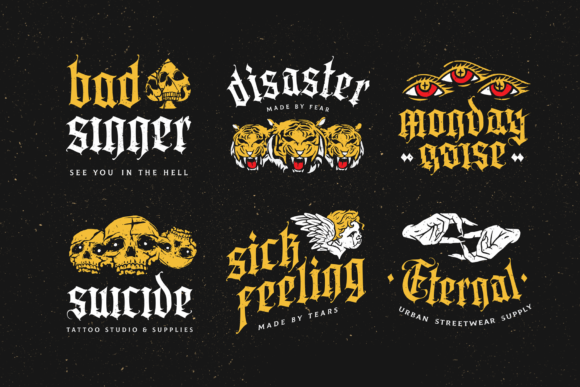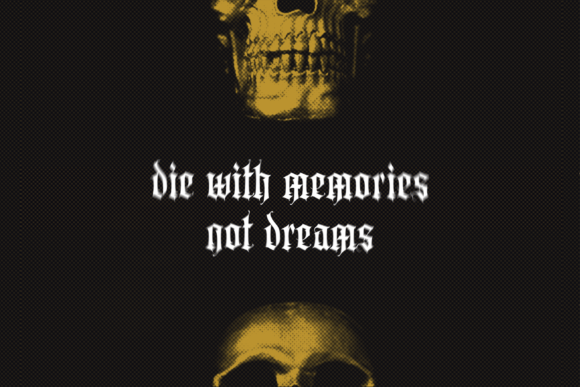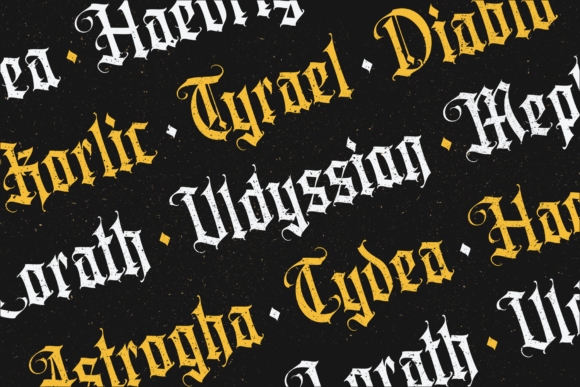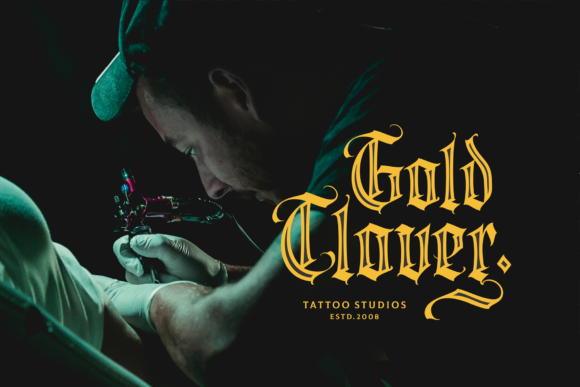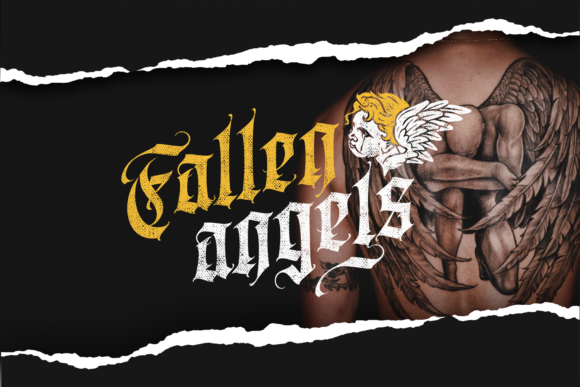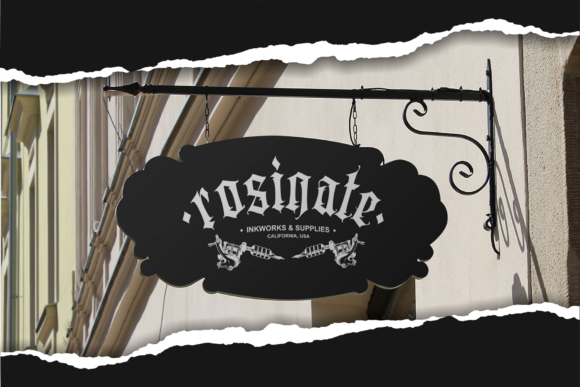
Aortascarta Font: Elevate Your Designs with a Unique Blackletter Style
In the world of typography, fonts play a crucial role in conveying messages, expressing creativity, and establishing brand identities. For designers and crafters seeking a distinctive and eye-catching font, Aortascarta is an exceptional choice. This unique blackletter font is designed to add a special touch to your designs, making it perfect for various applications, from logos and branding to packaging, tattoo lettering, certificates, and more.
What is Aortascarta Font?
Aortascarta is a one-of-a-kind blackletter font that stands out from the crowd. Its distinctive design features intricate and ornate lettering, characterized by dramatic flourishes and sharp, angular lines. This font is carefully crafted to evoke a sense of elegance, sophistication, and mystery, making it an excellent choice for designers looking to create stunning visual effects.
Key Features of Aortascarta Font
- Unique Blackletter Design: Aortascarta boasts a distinctive blackletter style that sets it apart from other fonts. Its dramatic flourishes and sharp lines create a striking visual effect, perfect for making a statement.
- High Versatility: This font is incredibly versatile, making it suitable for a wide range of applications, from logos and branding to packaging, tattoo lettering, certificates, and more.
- Elegant and Sophisticated: Aortascarta exudes elegance and sophistication, making it an excellent choice for designers seeking to create high-end visual effects.
Applications of Aortascarta Font
Aortascarta’s versatility makes it an excellent choice for various design projects. Here are some of the ways you can use this exceptional font:
- Logos and Branding: Create a lasting impression with a unique and memorable logo that showcases your brand’s personality.
- Packaging Design: Add a touch of elegance and sophistication to your packaging designs, making your products stand out on store shelves.
- Tattoo Lettering: Aortascarta’s dramatic flourishes and sharp lines make it an excellent choice for tattoo lettering, adding a touch of personality to your designs.
- Certificates and Diplomas: Create stunning certificates and diplomas that exude elegance and sophistication.
- Advertising and Marketing: Use Aortascarta to create eye-catching advertisements and marketing materials that grab attention.
Tips for Using Aortascarta Font
To get the most out of Aortascarta, here are some tips to keep in mind:
- Experiment with Colors: Aortascarta looks stunning in various colors, so don’t be afraid to experiment and find the perfect hue for your design.
- Play with Sizes: This font looks great in various sizes, from small and delicate to large and dramatic.
- Combine with Other Fonts: Aortascarta pairs well with other fonts, so feel free to experiment with different combinations to create a unique visual effect.
Aortascarta is a unique and exceptional blackletter font that can elevate your designs to the next level. Its distinctive design, versatility, and elegance make it an excellent choice for designers and crafters seeking to create stunning visual effects. Whether you’re working on a logo, branding, packaging, tattoo lettering, or certificates, Aortascarta is sure to add a special touch to your designs.